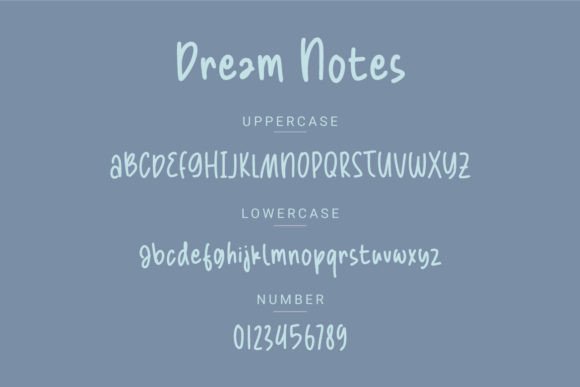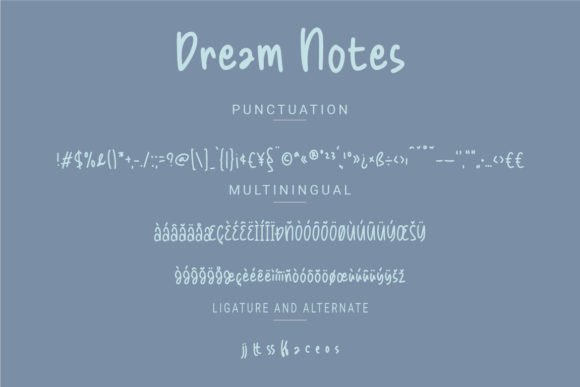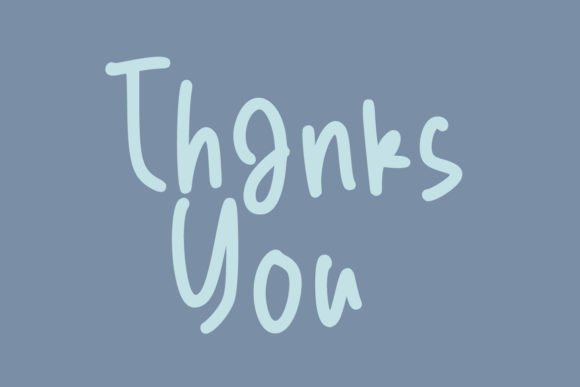
Introduction to Dream Notes Font
Dream Notes is a handwritten font that exudes a soft, dreamy, and feminine aesthetic.
Its flowing, organic lines and gentle curves give it a relaxed and casual feel The uneven baseline and slight variations in letterforms contribute to its handwritten appearance, making it feel personal and intimate.
Key Features of Dream Notes Font